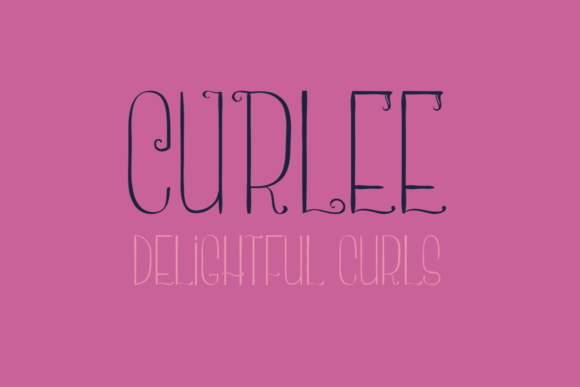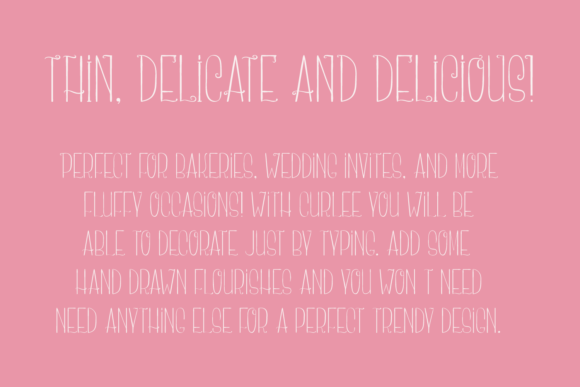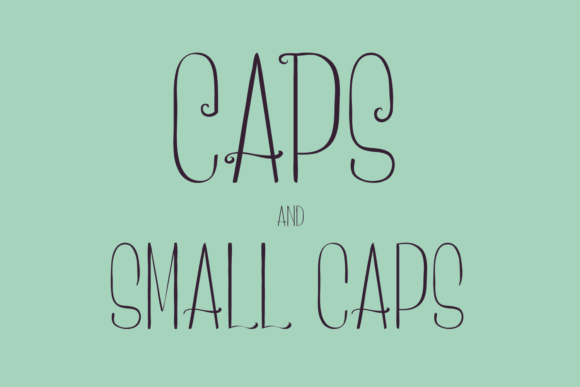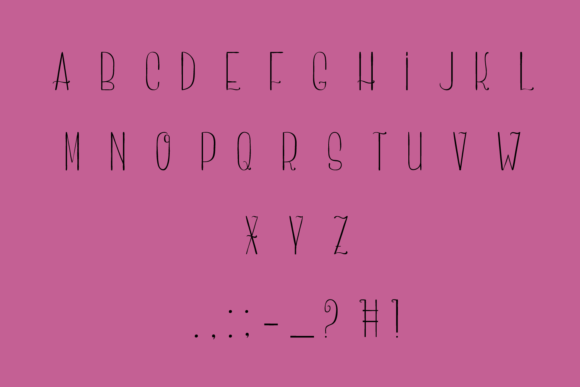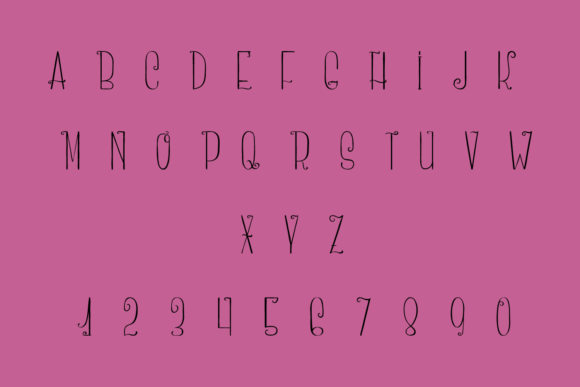
Discover the Beauty of Curlee Font: A Thin and Lovely Typeface for Your Design Needs
In the world of typography, fonts play a crucial role in conveying the tone and personality of a design. Whether you’re a graphic designer, a crafty DIY enthusiast, or a digital artist, finding the right font can make all the difference in creating a visually appealing and effective design. If you’re looking for a font that exudes a natural, jungle-like feel, look no further than Curlee Font. In this article, we’ll explore the features and benefits of Curlee Font, and why it’s an excellent choice for your next design project.
What is Curlee Font?
Curlee Font is a thin and lovely typeface that is perfect for designs that require a more natural, organic feel. This font is ideal for projects that need a touch of elegance and sophistication, while still conveying a sense of playfulness and whimsy. With its delicate lines and curves, Curlee Font is sure to add a unique and eye-catching element to your design.
Key Features of Curlee Font
So, what makes Curlee Font so special? Here are some of its key features:
- Uppercase and Lowercase Letters: Curlee Font comes with a full set of A-Z uppercase and lowercase letters, allowing you to create a wide range of designs and texts.
- Numbers: The font also includes 0-9 numbers, making it suitable for designs that require numerical elements.
- Limited Punctuation: While Curlee Font may not have an extensive range of punctuation marks, it still includes the most commonly used symbols, such as periods, commas, and exclamation points.
- Thin and Delicate: The font’s thin and delicate lines give it a light, airy feel that’s perfect for designs that require a subtle touch.
Use Cases for Curlee Font
Curlee Font is a versatile typeface that can be used in a variety of design projects, including:
- Branding and Logo Design: The font’s unique and elegant feel makes it perfect for creating logos and brand identities that require a touch of sophistication.
- Digital Art and Illustrations: Curlee Font can add a beautiful, organic element to your digital art and illustrations, making them stand out from the crowd.
- Crafting and DIY Projects: Whether you’re creating handmade cards, scrapbooking, or working on other crafty projects, Curlee Font is a great choice for adding a personal touch.
- Web Design: The font’s thin and delicate lines make it suitable for web design, particularly for headings, titles, and other display text.
Why Choose Curlee Font?
So, why should you choose Curlee Font for your next design project? Here are just a few reasons:
- Unique and Eye-Catching: Curlee Font’s delicate lines and curves make it a standout typeface that’s sure to grab attention.
- Versatile: The font’s versatility makes it suitable for a wide range of design projects, from branding and logo design to digital art and crafting.
- Elegant and Sophisticated: Curlee Font’s elegant feel makes it perfect for designs that require a touch of sophistication and refinement.
In conclusion, Curlee Font is a beautiful and versatile typeface that’s perfect for designers and crafters looking for a font with a natural, jungle-like feel. With its thin and delicate lines, full set of uppercase and lowercase letters, and limited punctuation, Curlee Font is an excellent choice for a wide range of design projects. Whether you’re creating a logo, digital art, or working on a crafty project, Curlee Font is sure to add a unique and eye-catching element to your design.